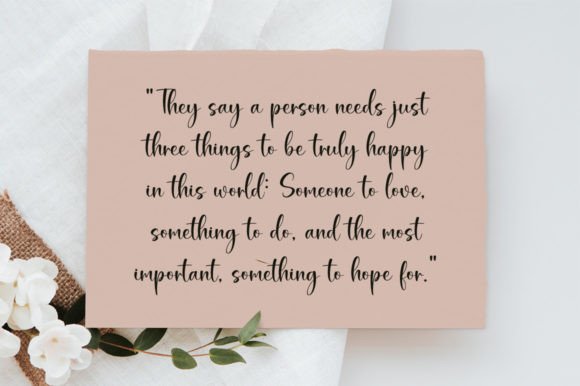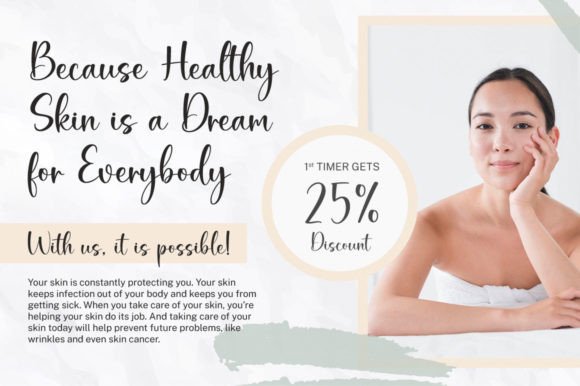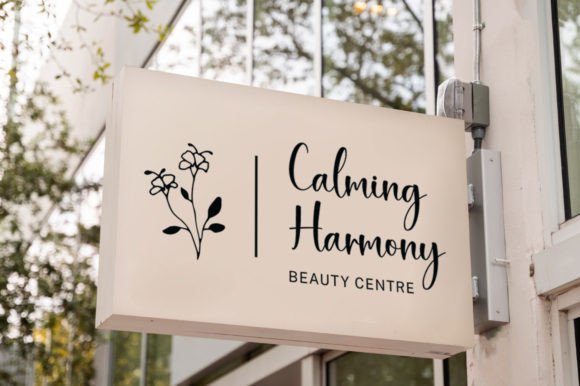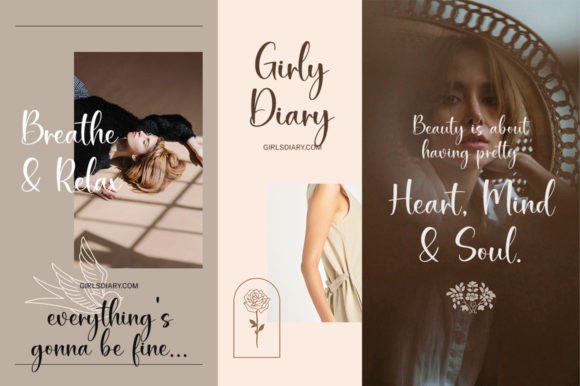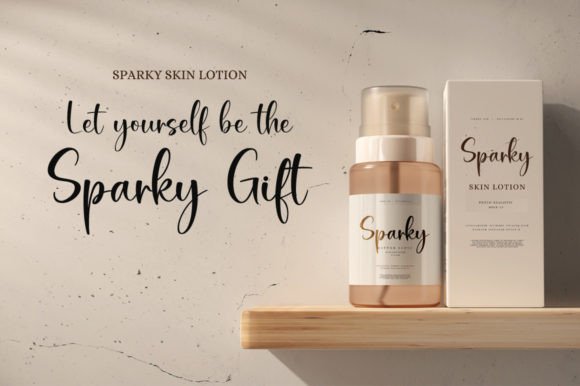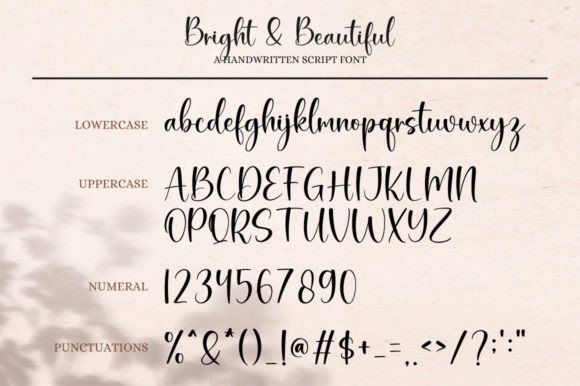
Introduction to Bright & Beautiful Font
Bright & Beautiful is a delicate and refined script font that emanates sophistication and elegance.
Fall in love with its incredibly versatile style and use it to create gorgeous wedding invitations, beautiful stationary art, eye-catching social media posts, and much more This font is PUA encoded which means you can access all of the amazing glyphs and ligatures with ease.